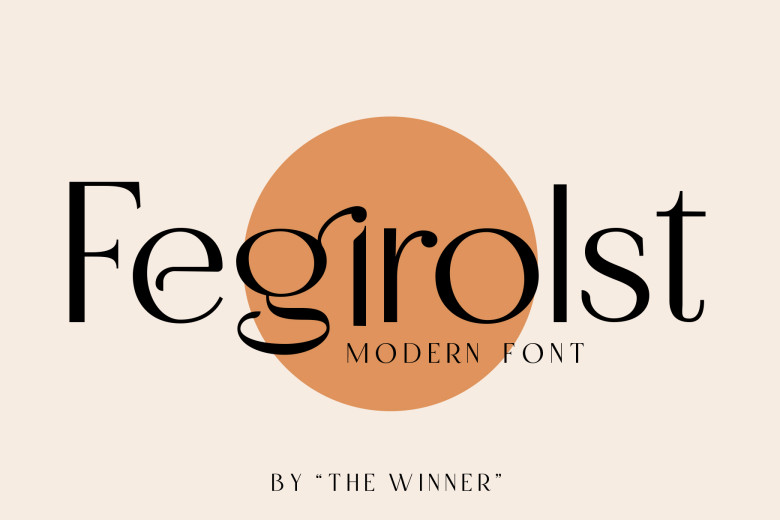
Fegirolst Font
Fegirolst is an elegant sans-serif typeface, which adds modernity and sophistication to formal or casual designs alike. With this beautiful font at your disposal, any one of your projects is sure to look its best.
Fegirolst Sans Serif Font